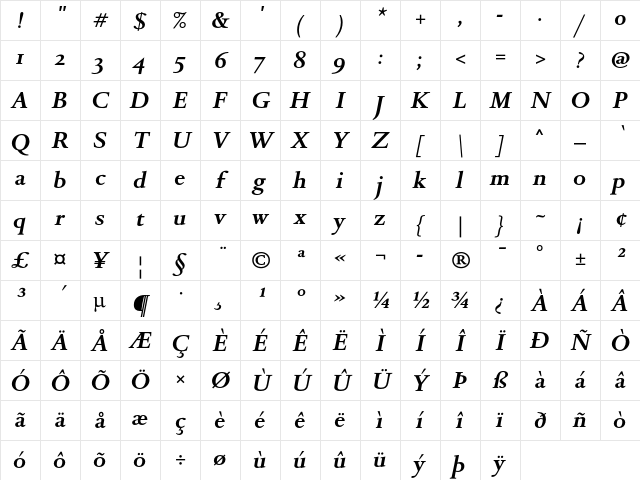
Complete DTLRomulusST Regular glyph index. Displaying only characters natively supported by DTLRomulusST Regular font.
DTLRomulusST is a composed and adaptable typeface that performs quietly and consistently across a wide range of design contexts.